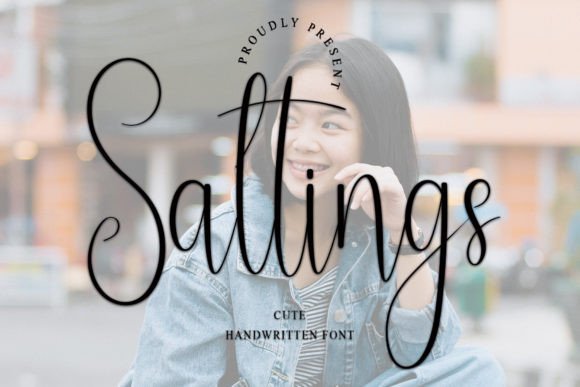
Meet Saltings Font - A Handcrafted Masterpiece for Modern Websites!
Embark on a typographic odyssey with Saltings Font, a script font family exuding elegance and charm. Its meticulously crafted curves and delicate strokes paint a visual narrative of timeless beauty, making it the perfect choice for designers seeking a touch of sophistication for their digital creations.
Unleash your creativity and delve into a world of possibilities with Saltings Font. Its versatile nature effortlessly complements various design aesthetics, from sleek minimalism to whimsical illustrations, adding a touch of allure to every project it graces. Whether you're crafting logos, branding materials, website designs, or heartfelt invitations, Saltings Font is your trusted ally, transforming your concepts into stunning realities.
Step into the realm of visual storytelling with Saltings Font, where every letter dances with grace and fluidity. Its enchanting appearance instantly captures hearts, evoking emotions and leaving a lasting impression. Let your designs radiate with warmth and authenticity as Saltings Font weaves its magic, captivating your audience and leaving them yearning for more.
Discover the allure of a font that transcends time, a font that whispers tales of elegance and refinement. Saltings Font is not just a collection of letters; it's an invitation to embark on a creative journey where imagination knows no bounds. Its timeless appeal ensures that your designs will remain relevant and captivating, standing the test of fleeting trends.